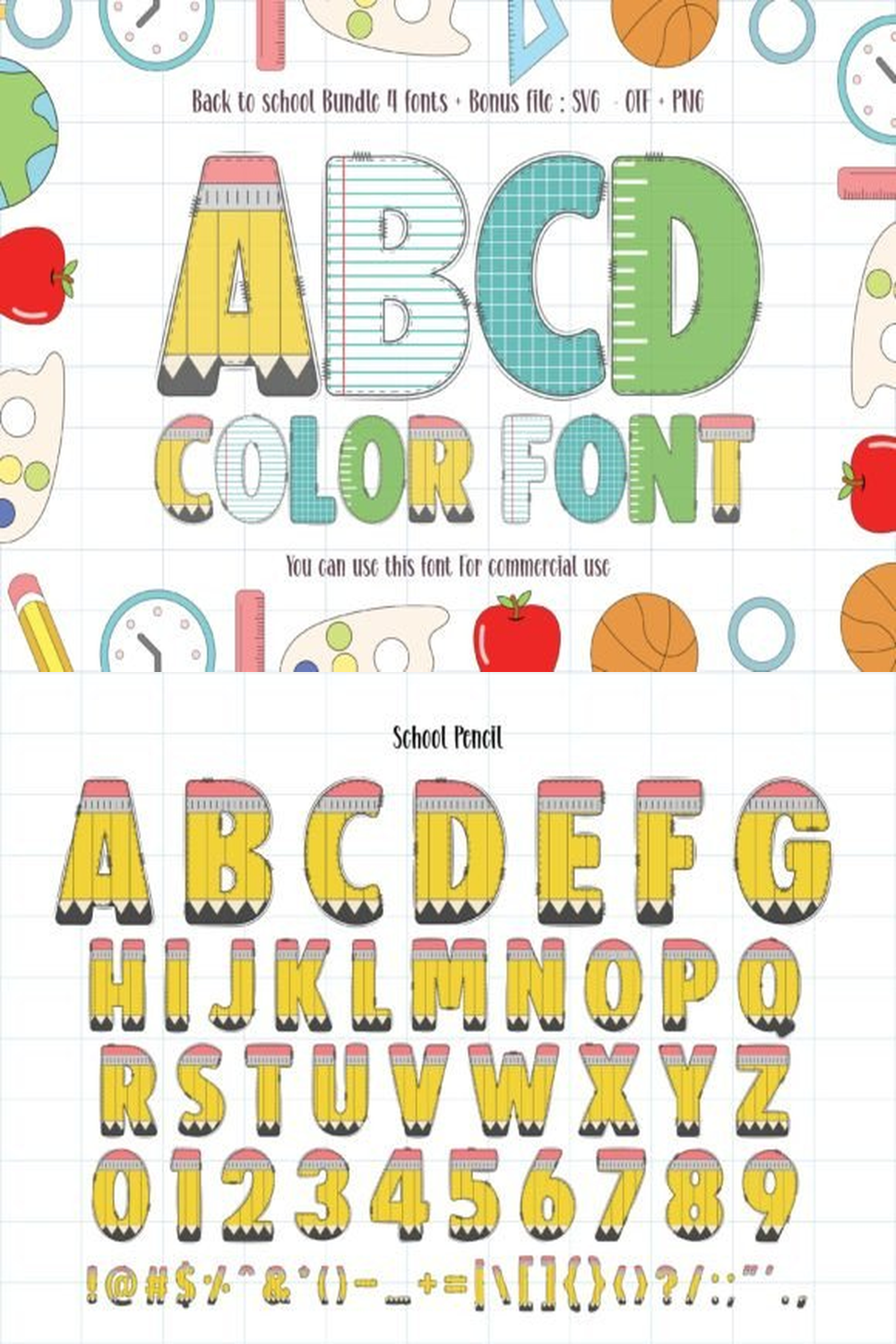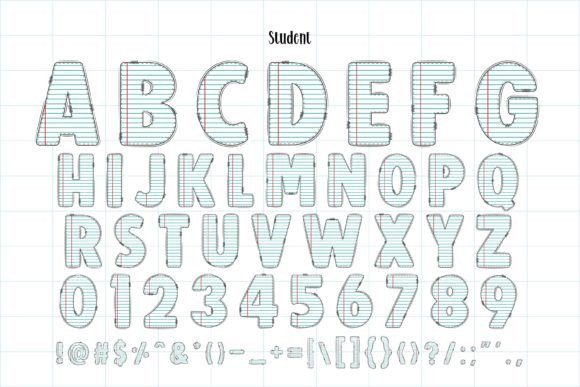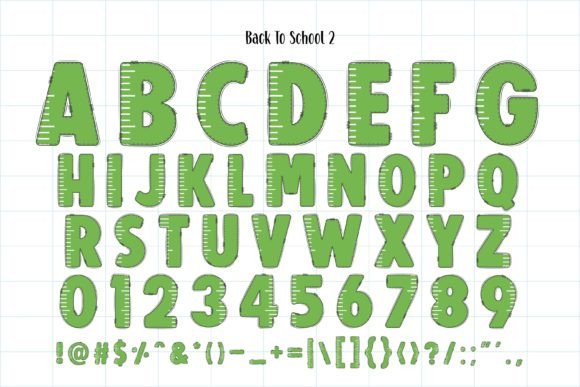
About the Back to School Font
Add a touch of class to your work with the Back to School Font, a truly exceptional typeface. Back To School is a thick lettered and incredibly unique color font. It can be used for various design ideas, particularly those related to children’s games and school.